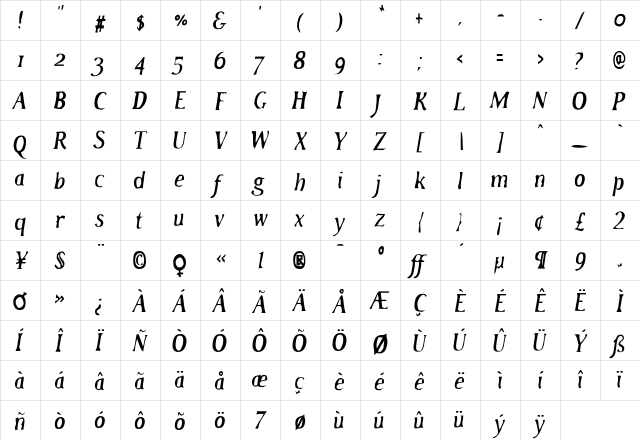
HateNote Italic
Design Context for HateNote Typeface
HateNote is a composed and adaptable typeface that performs quietly and consistently across a wide range of design contexts. The slanted form adds forward momentum and visual energy.
Pro Tip: Try HateNote for annotation and caption copy alongside an upright companion — the contrast in angle creates a dynamic but ordered typographic system.